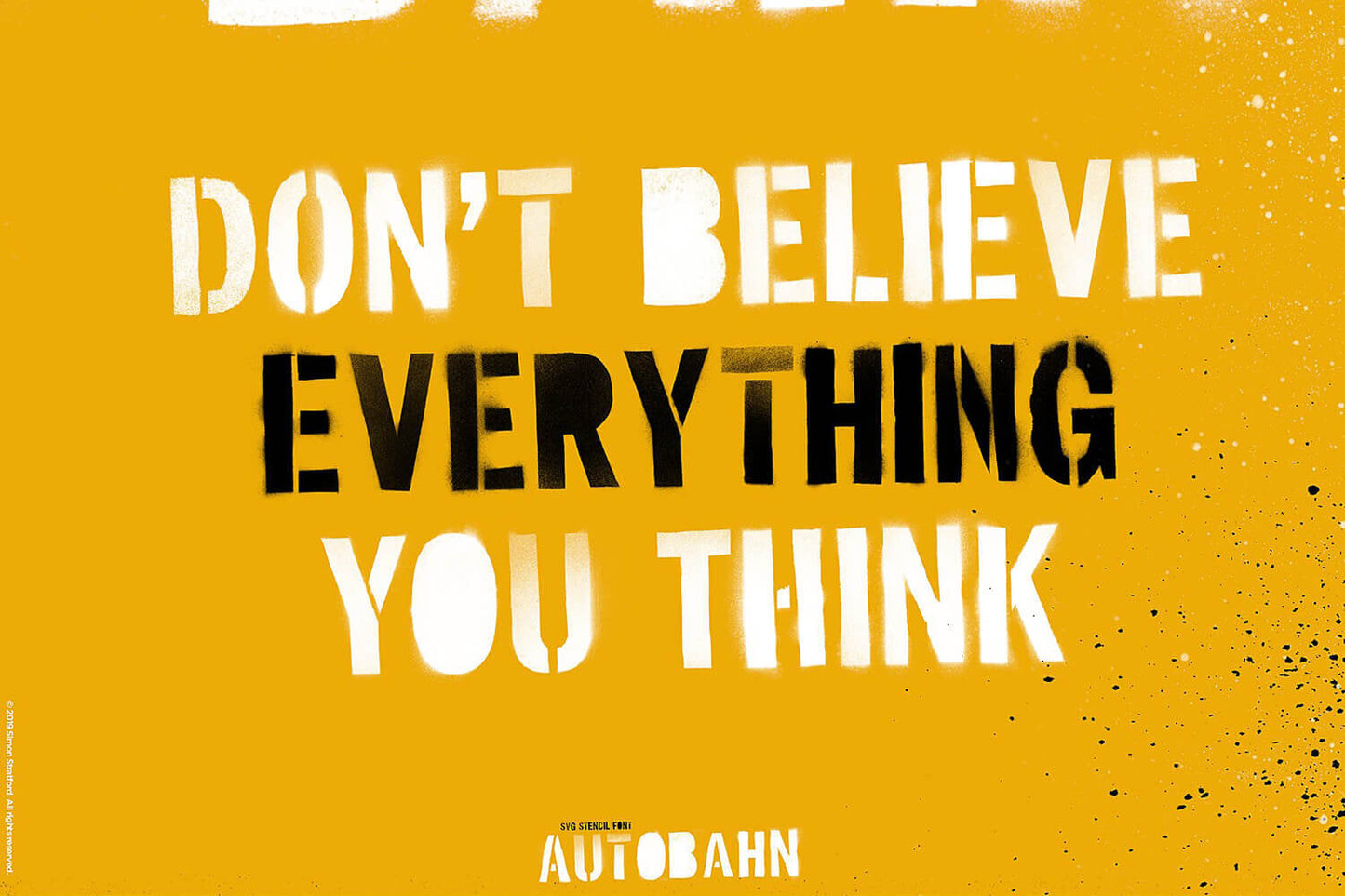
Some stencil fonts imitate spray paint. Autobahn SVG Stencil Font was really made with real spray paint Every character began with a cardboard stencil cut by hand and black acrylic paint applied to real paper.
The overspray is real. The splatters are real. The mess was very real.
A stencil font made the difficult way
Autobahn began with cardboard, a knife and the sort of optimism that disappears after cutting out an entire alphabet by hand.
Once the stencils were ready, I sprayed every character onto paper using black acrylic paint. Some letters came out relatively clean. Others collected overspray, broken edges, splatters and rough patches.
A computer would call those mistakes—I called them the font.
Because a realistic spray-paint typeface should contain evidence that someone actually sprayed it.
Why Autobahn uses OpenType SVG
A traditional vector font reduces each character to a smooth outline filled with one solid colour. That works brilliantly for clean typography.
It is less convincing when you want dirt, transparency and thousands of tiny variations in paint.
Autobahn uses the OpenType SVG bitmap format to retain the subtle shades of black and grey, transparent overspray, damaged edges and paint splatters found in the original artwork.
It does not add a spray-paint effect to a font.
The spray paint is the font.
At least two alternatives for every letter
Autobahn is a unicase typeface, meaning all its characters are uppercase.
Typing A–Z gives you one version of each letter. The lowercase a–z keyboard positions contain alternative uppercase forms, giving every letter at least two different appearances.
Additional glyphs with missing counters provide even more variation. Mix the alternatives to stop repeated characters looking copied and create typography with a more random, naturally stencilled rhythm.
Same alphabet.
More damage.
Forty-two real spray-paint textures
The font also includes 42 high-resolution spray-paint drips and splatters.
Each texture was created using real paint on real paper before being isolated on a transparent background. You can place them over the type, around a composition or across an image to make every design feel different.
The transparent backgrounds also make it easy to recolour the textures in Photoshop or another compatible image-editing application.
You get the look of a freshly sprayed wall.
Without having to explain it to the neighbours.
Where to use Autobahn SVG Stencil Font
Autobahn is a bold display font built for projects that need an urban, industrial, military or graffiti-inspired appearance:
- Posters and advertising
- Album covers and music graphics
- Packaging and product labels
- Book and magazine covers
- Editorial headlines
- T-shirts and merchandise
- Film and television titles
- Social-media campaign graphics
Use it large enough to see the paint.
Otherwise, what was the point of making such a mess?
Clean typography has its place
This isn’t it.
Autobahn SVG Stencil Font keeps the overspray, damaged edges and accidental marks that make real stencil lettering interesting. It gives you the energy of genuine spray paint without the cardboard, the fumes or the black acrylic paint covering everything you own.
Perfect letters are easy to reproduce.
Real character takes a little more work.